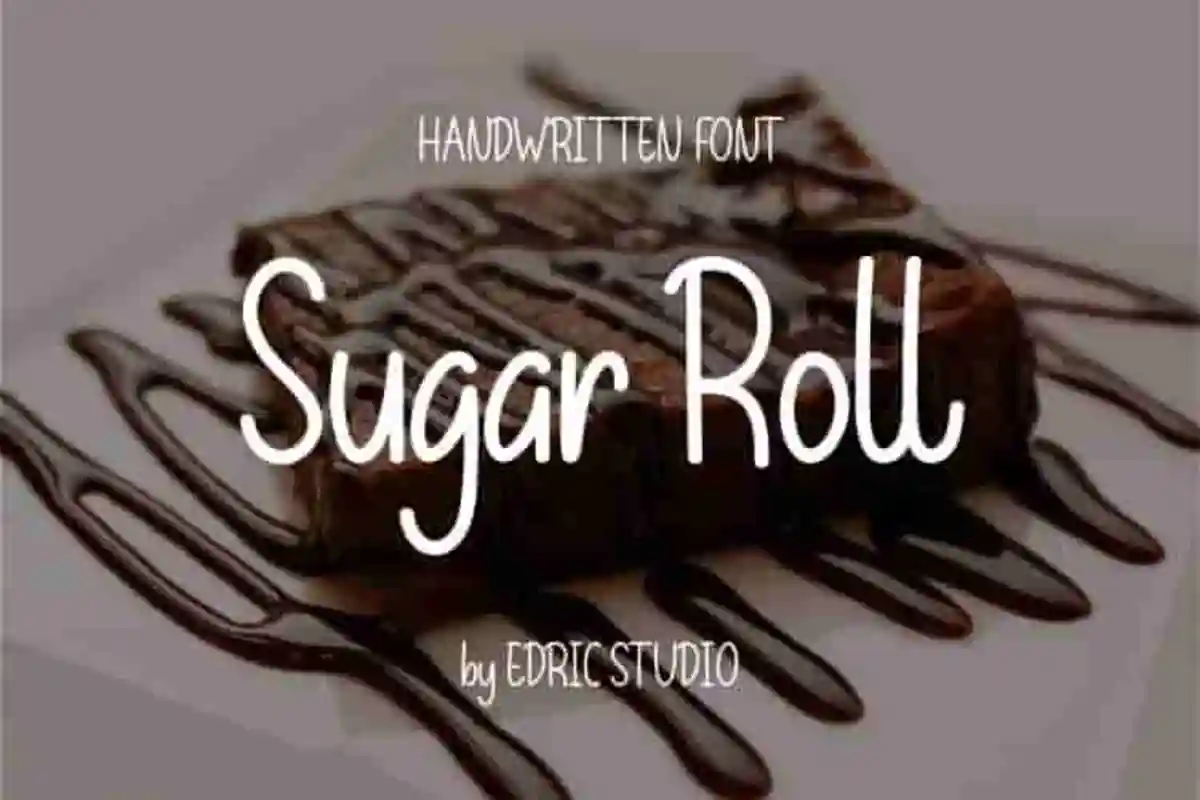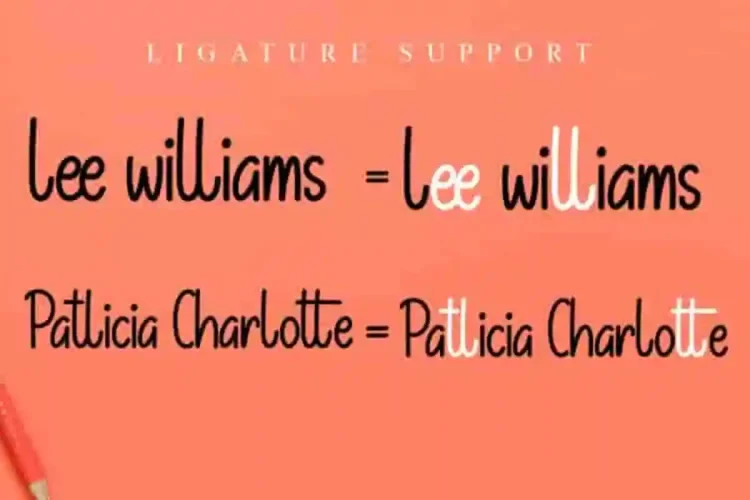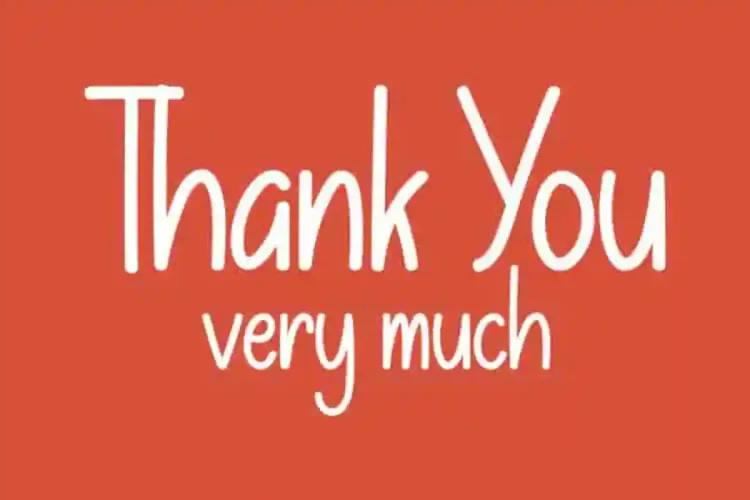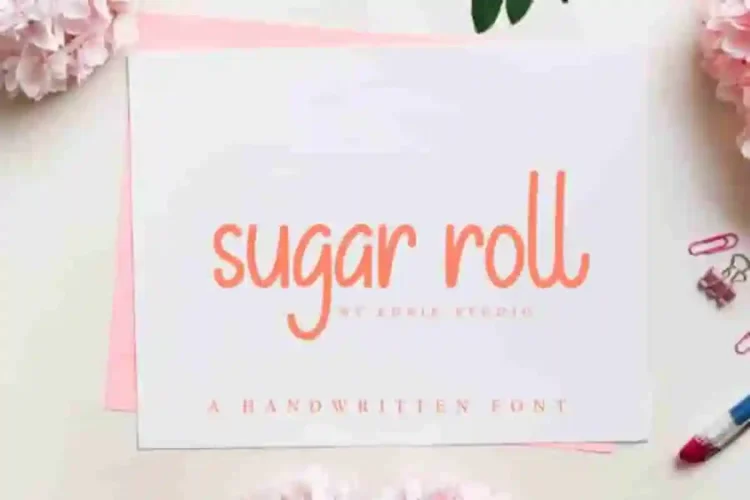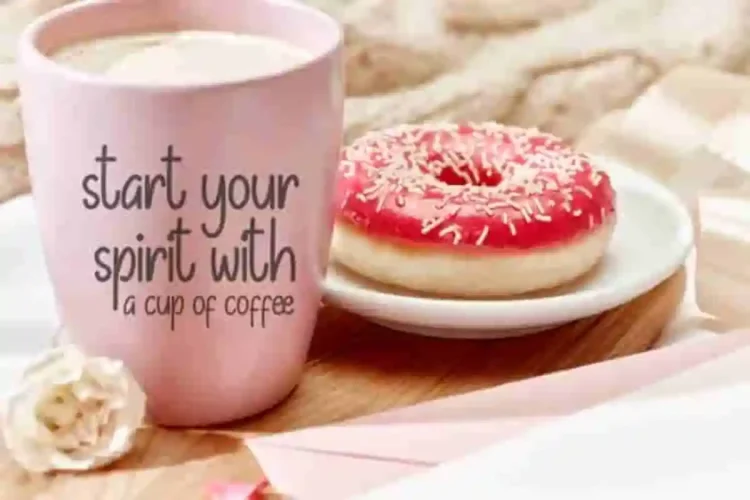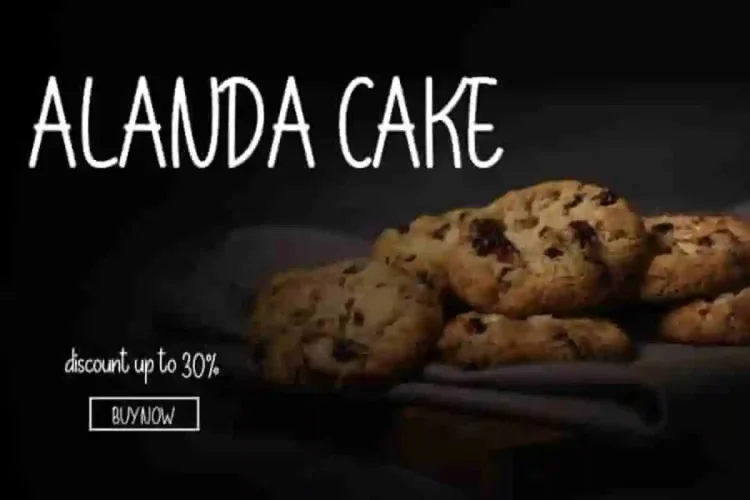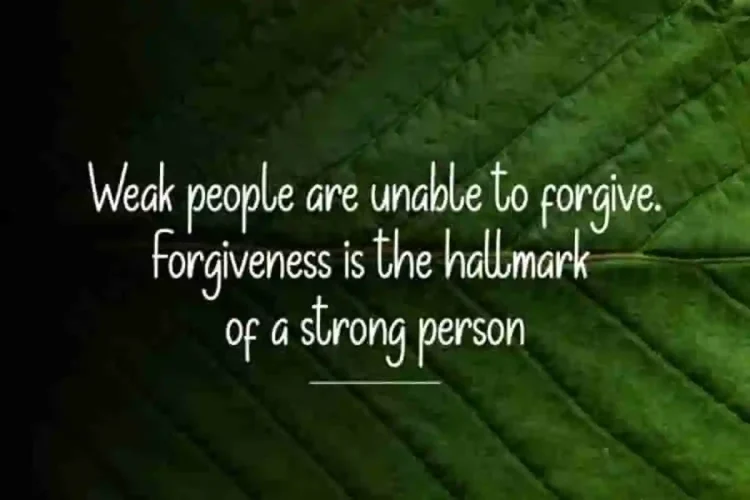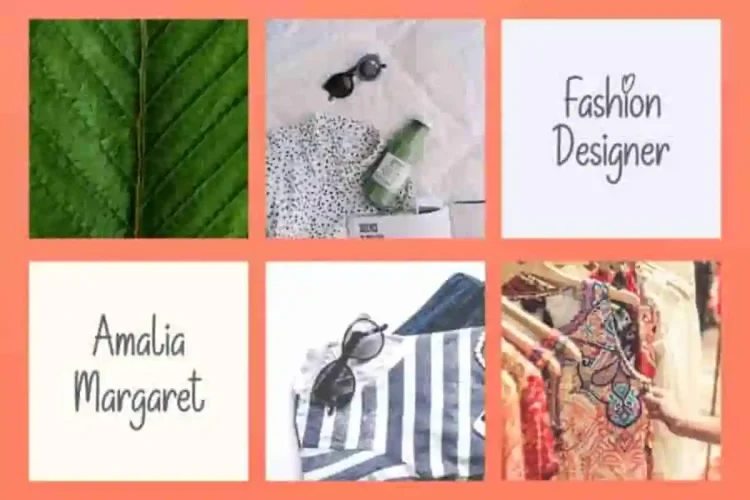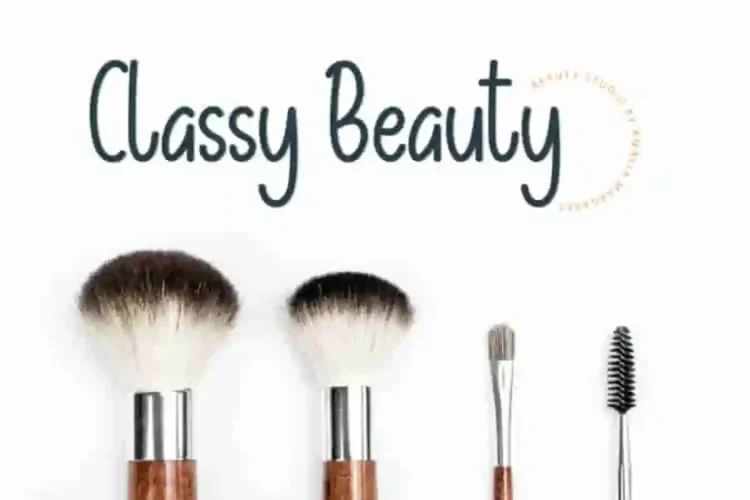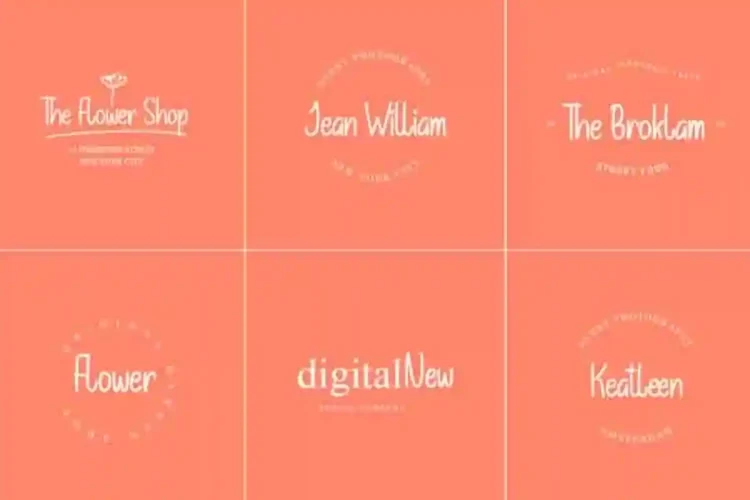
Sugar Roll Handwritting Script Font
Sugar Roll Handwritting Font is a fancy handwriting script font with unique style. Designed and handcrafted in our Studio, Indonesia. Sugar Roll Font is an exclusive handwritting font with unique styles : fun, cartoon, casual, stylish  and classic style. It has a great characters set, perfectly managed with well spaced and kerning.
Sugar Roll Handwritting Script Font will be great for any projects  including : branding and logo (with extended license), stationery, business card, signage, flyer, brochure etc. Many industries will be match for this typeface: school, wedding, events, non profits foundation, florist, gardening, makeup artist, travel, hotel, musician etc.